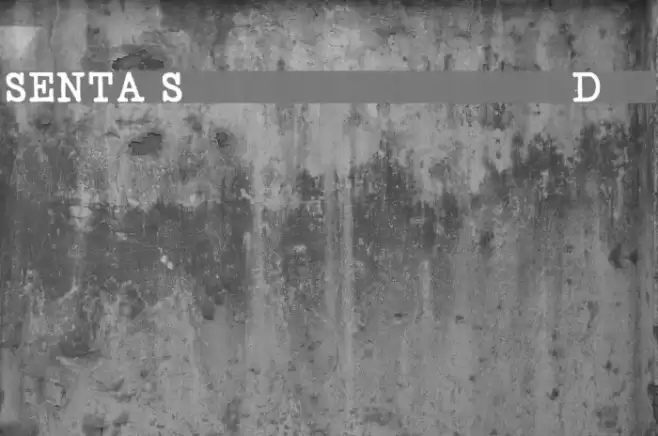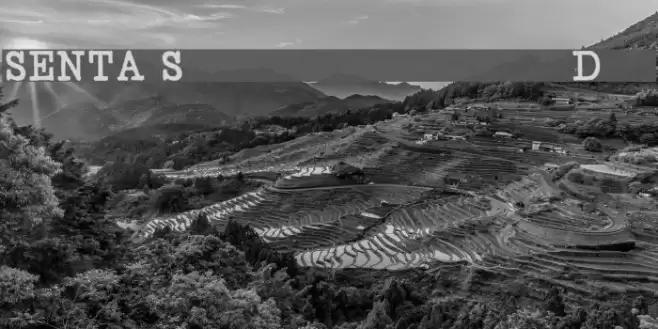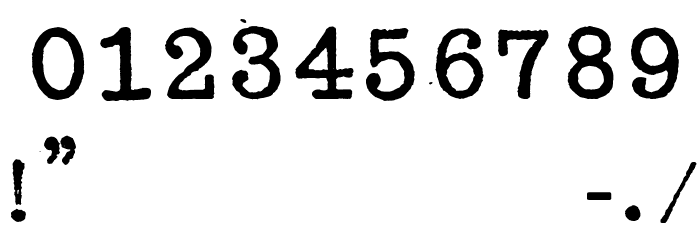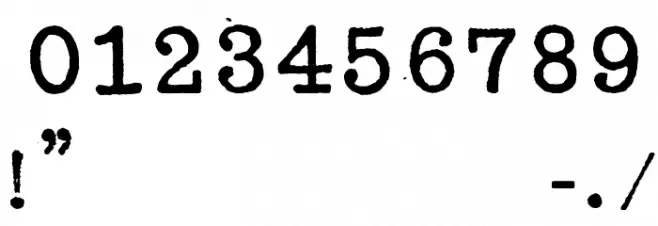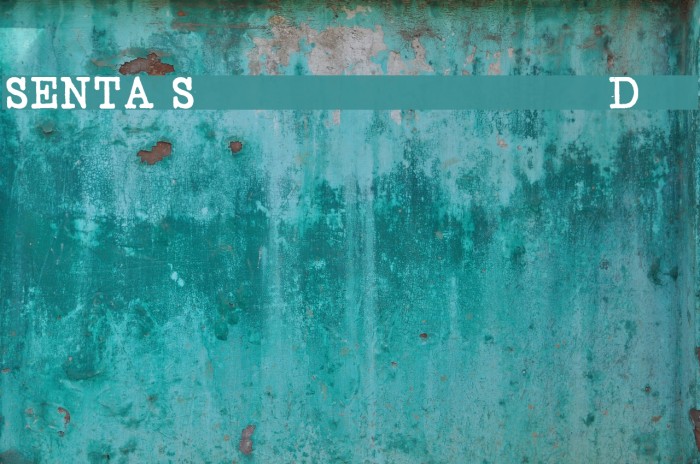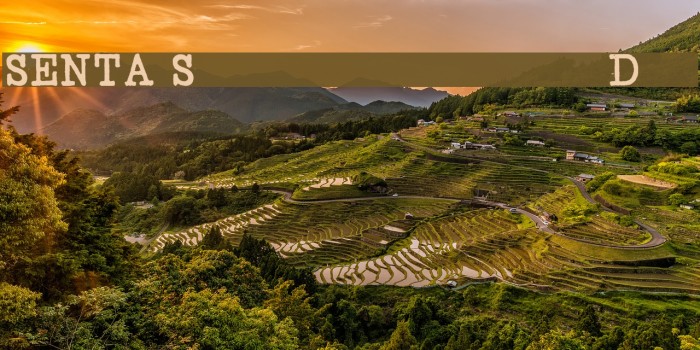
SENTA Schreibmaschine Demo Font
SENTA Schreibmaschine Demo Description
This font exhibits a classic typewriter style, characterized by its monospaced letters and a slightly uneven, mechanical appearance. The uppercase letters are bold and prominent, with distinct serifs that give them a vintage feel. The numbers and punctuation marks maintain the same monospaced quality, ensuring uniformity across all characters. The font's texture mimics the imperfections of ink on paper, adding to its nostalgic charm. It's ideal for projects that require a retro or analog aesthetic, such as vintage-themed designs, typewriter art, or historical documents.
A classic typewriter-style font with monospaced characters and a vintage feel from Typewriter fonts.
- Proposed Projects: Ideal for vintage-themed designs, typewriter art, historical documents, and retro branding.
- Overall Style: Vintage